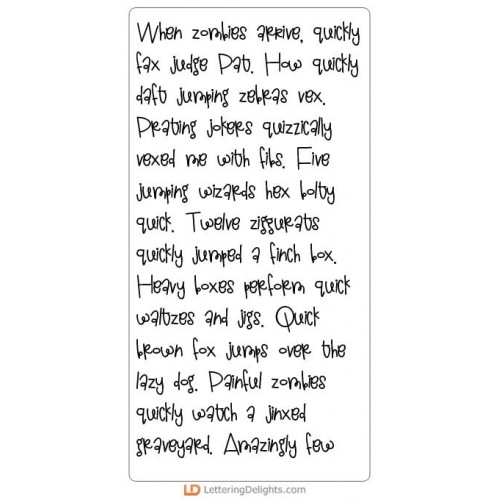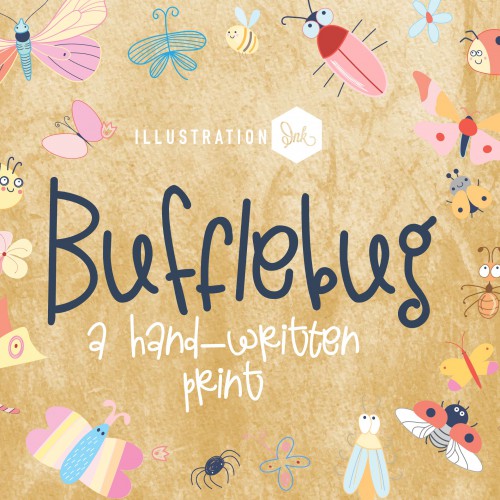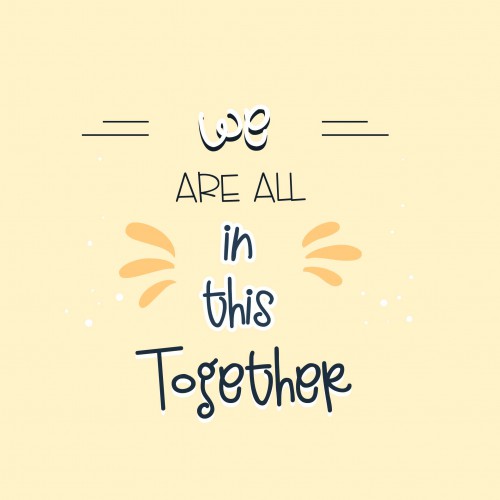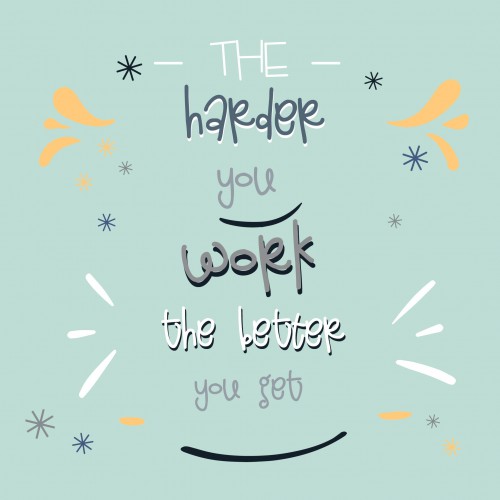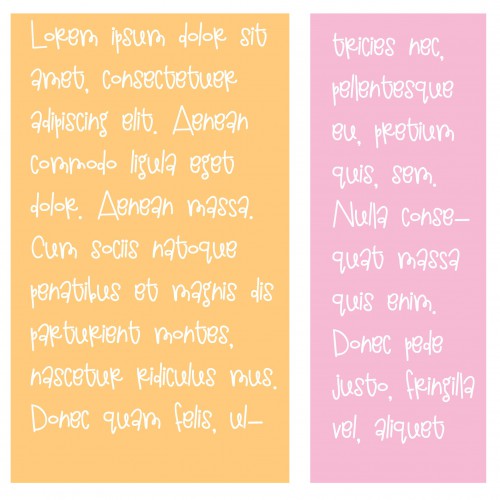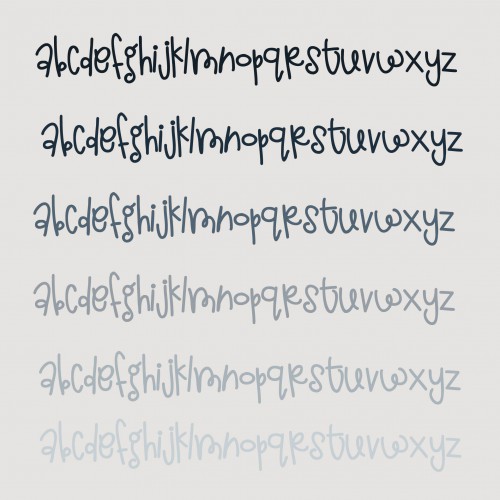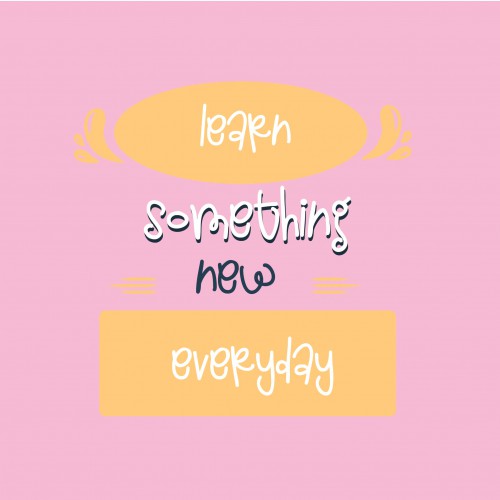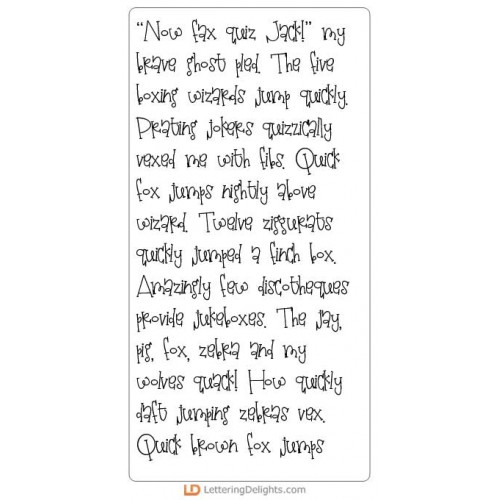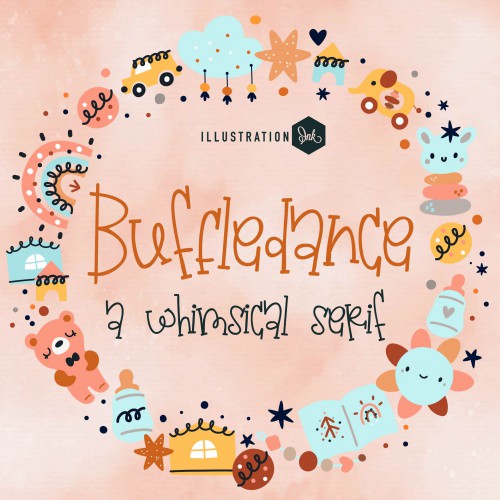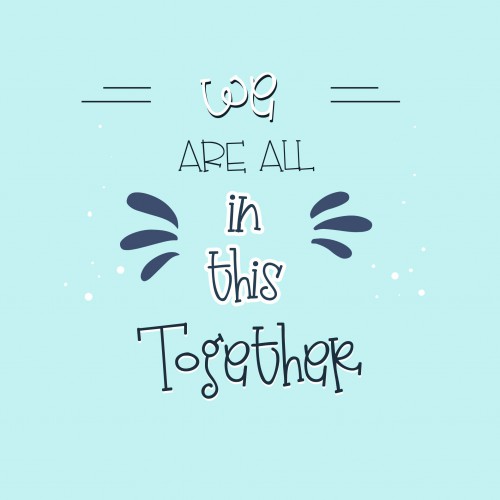
Blossom Babes - Big Bundle
This fun collection features babelicious florals and puns perfect for Mother's Day, gifts, teachers, classrooms, cards, planner stickers, scrapbook pages and more!
PN Breazer Condensed Bold - FN
This blocky, hand-crafted sans serif is whimsical and youthful...
PN Breazer - FN
This blocky, hand-crafted sans serif is whimsical and youthful...
PN Bufflebug Bold - FN
This hand-written print is bouncy and very youthful...
PN Buffledance - FN
This hand-written print is bouncy and very youthful...
PN Coleslaw Expanded - FN
This hand-written script is bouncy with a print-like uppercase...
PN Coleslaw Condensed - FN
This hand-written script is bouncy with a print-like uppercase...